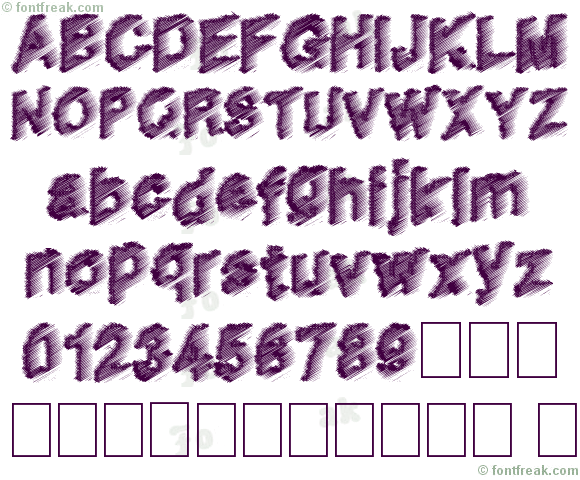
HouseMusic
The HouseMusic font by XEROGRAPHER FONTS is a unique display typeface that captures the spirit of creativity and urban culture. Released in 2013 under a freeware license, this font is characterized by its distinctive, hand-drawn appearance, reminiscent of street art and musical expression. The visual style of HouseMusic showcases a playful yet edgy design, featuring varied stroke weights that add depth and interest. The slightly irregular lines and artistic flair create a sense of movement, making it an excellent choice for projects that aim to convey energy and vibrancy.
Ideal for a range of creative applications, HouseMusic excels in designs such as music event posters, album covers, and promotional materials for nightlife venues. Its unconventional aesthetic also makes it suitable for restaurant menus that want to stand out or for branding materials targeting a youthful audience. Graphic designers, small business owners, and content creators will find this font particularly appealing, as it offers a fresh alternative to conventional typefaces.
The font's spacing and decorative elements contribute to its overall impact, allowing for easy legibility while maintaining a strong visual presence. Whether used in headlines or as part of a logo design, HouseMusic commands attention and resonates with a diverse audience.
What sets the HouseMusic font apart is its ability to blend artistic flair with practicality. Its free download availability makes it accessible for anyone looking to inject a bit of personality into their projects. By choosing HouseMusic, you not only embrace a unique design but also connect with the cultural pulse of creativity and expression. This font is more than just letters; it’s a statement that celebrates individuality and artistic freedom.